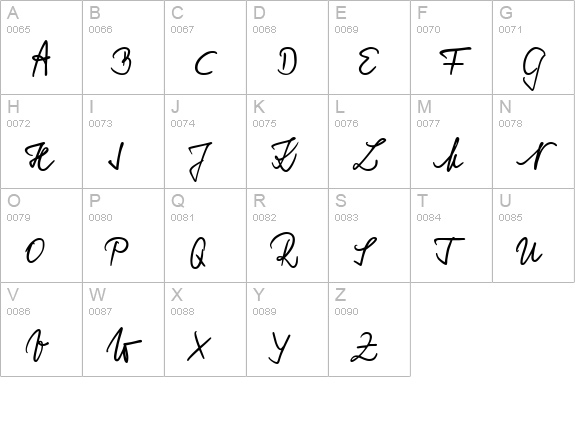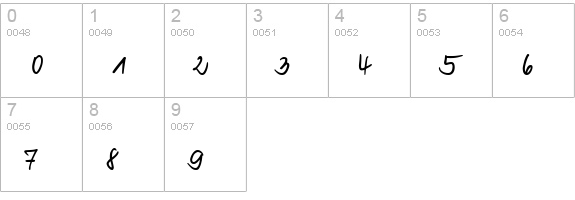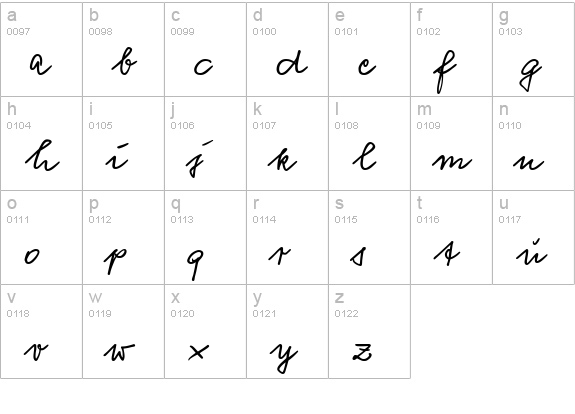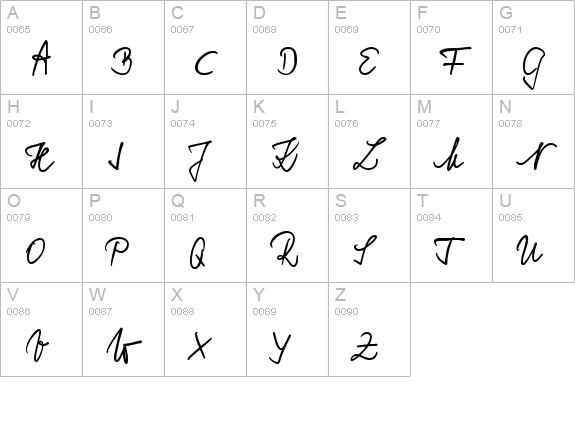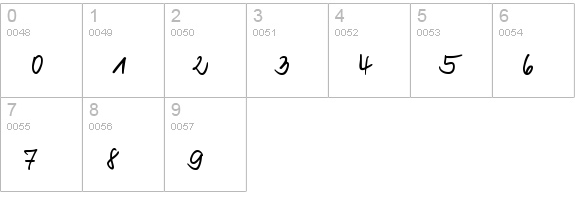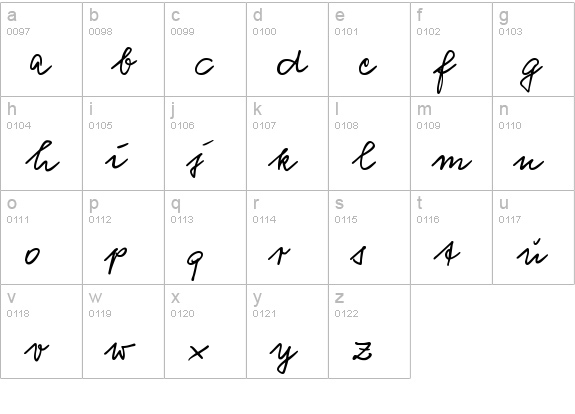
Vogel Handwriting font is a charming and elegant typeface that exudes a sense of creativity and authenticity. With its flowing lines and unique letterforms, this font is perfect for adding a personal touch to your projects. Whether you're designing invitations, posters, or branding materials, Vogel Handwriting will bring a touch of warmth and personality to your work. Best of all, Vogel Handwriting font is available for free download at FontsMarket.com. This means you can easily access this beautiful font and incorporate it into your designs without any cost. Don't miss out on this opportunity to enhance your projects with the beauty and charm of Vogel Handwriting font. Download it today and let your creativity soar!